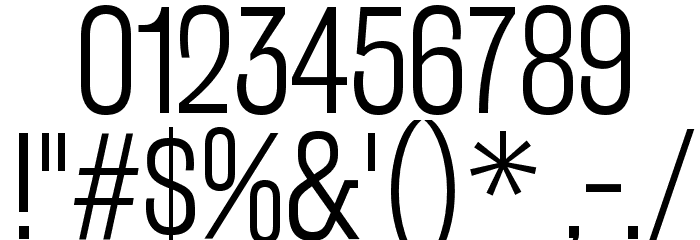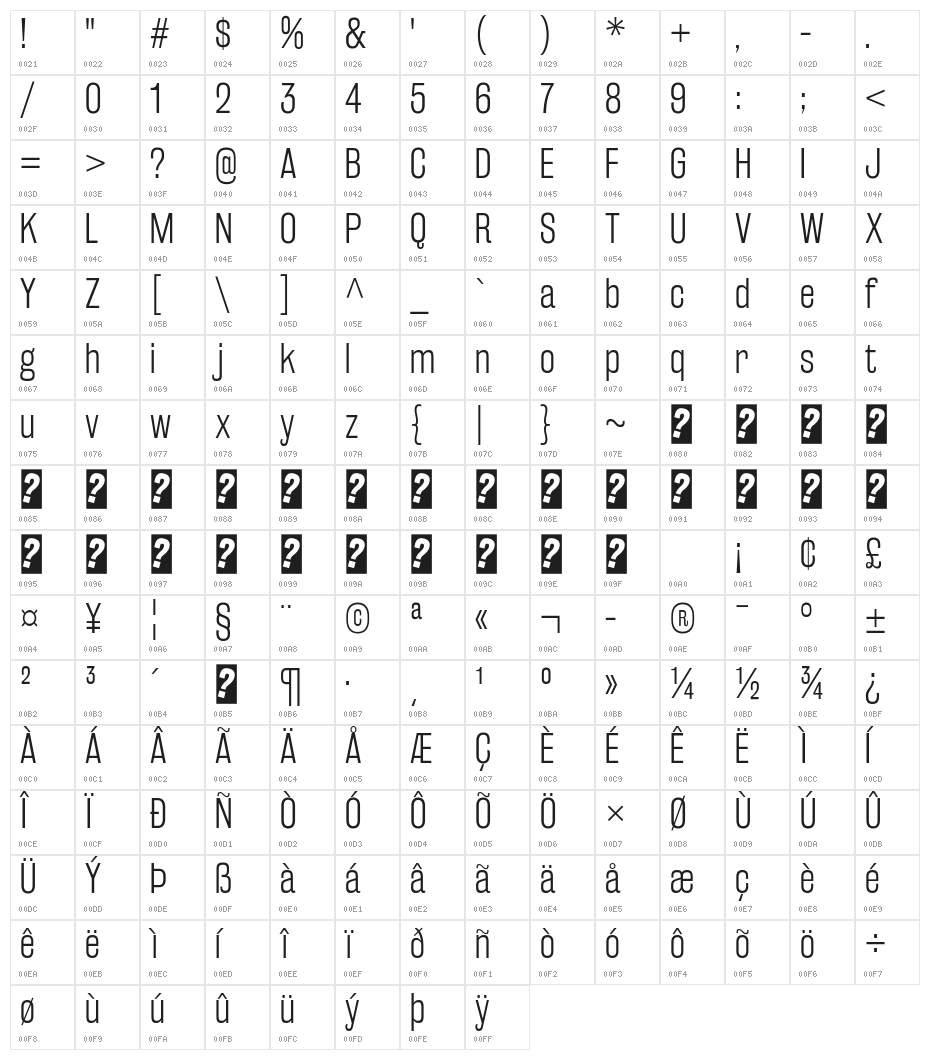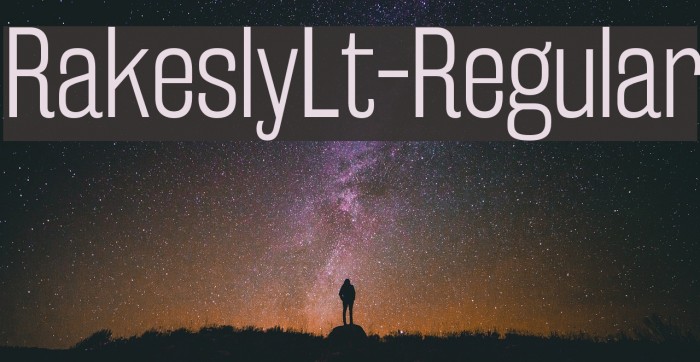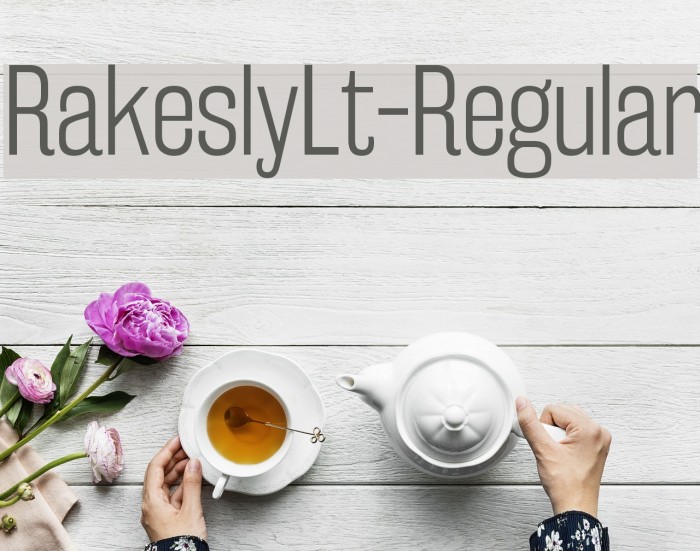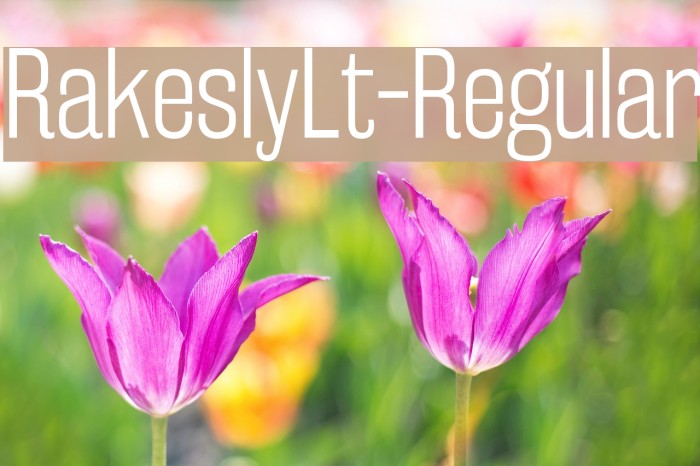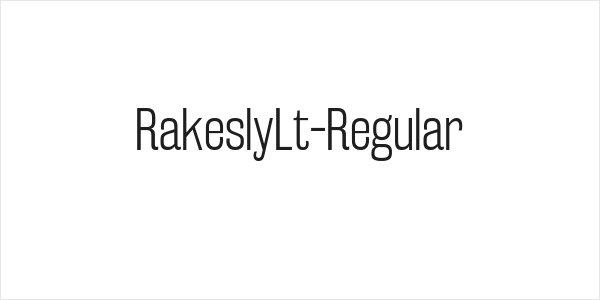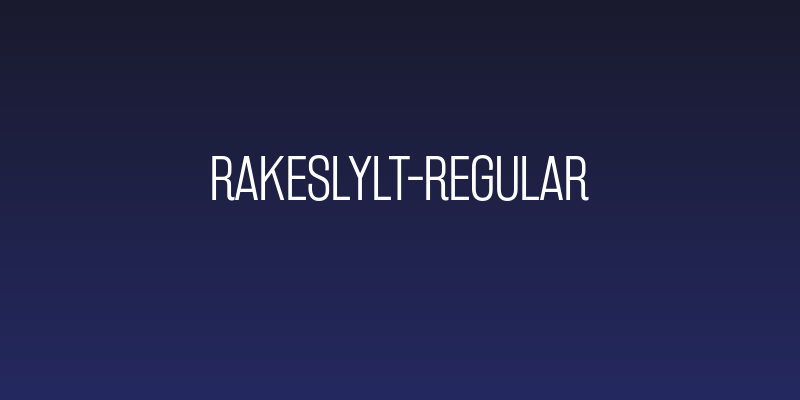
RakeslyLt-Regular Font
RakeslyLt-Regular Description
This font features a clean and modern sans-serif design with a tall and narrow structure. The characters are evenly spaced, providing a balanced and readable appearance. The uppercase letters are bold and commanding, while the lowercase letters maintain a consistent height, enhancing legibility. The numerals are straightforward and align well with the overall style. Special characters are distinct and integrate seamlessly with the rest of the font, making it versatile for various applications.
| Proposed Projects | Ideal for use in branding, editorial design, advertising, and web design projects where a modern and clean aesthetic is desired. |